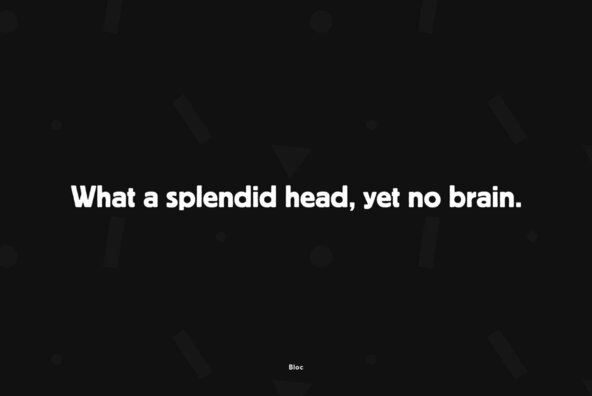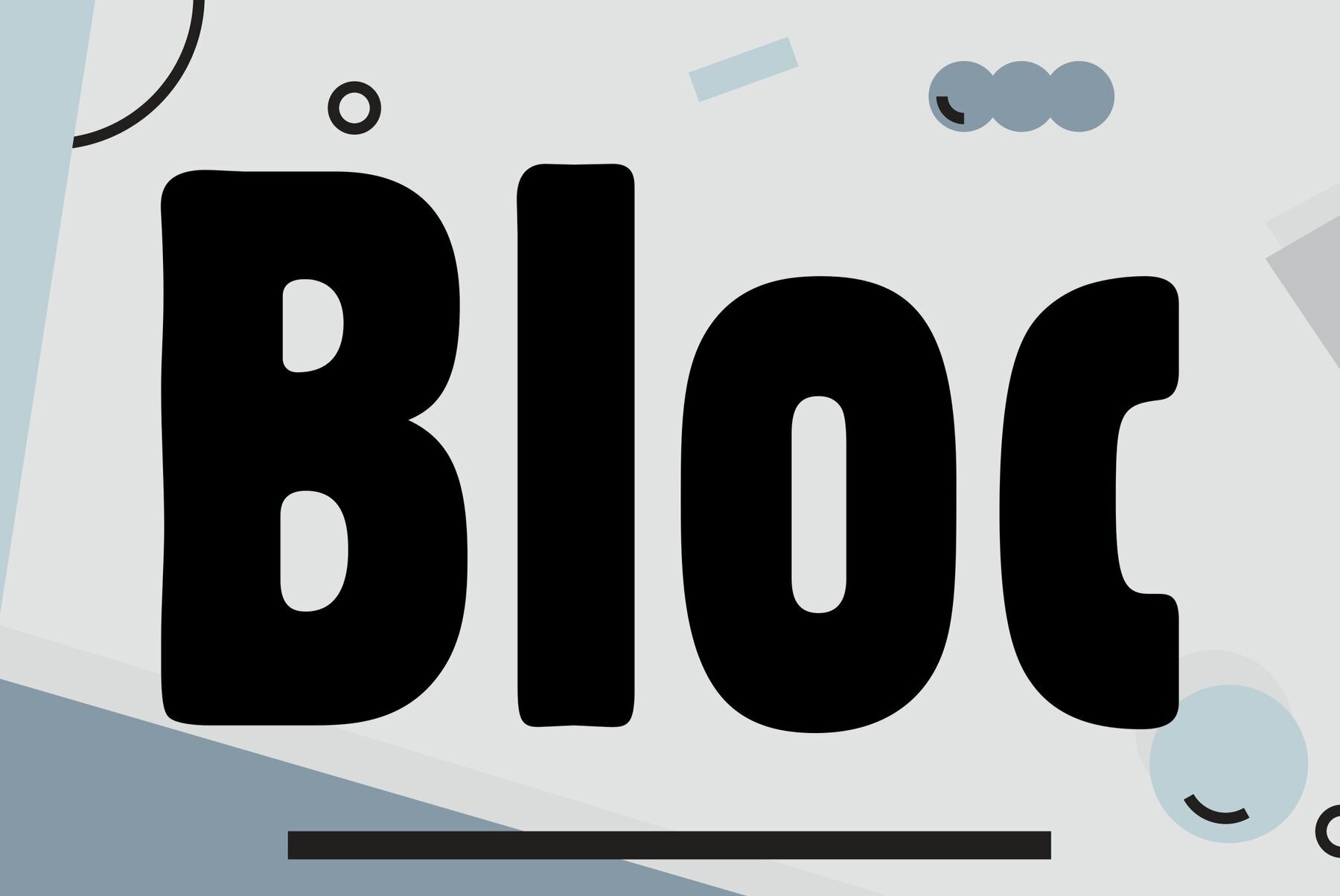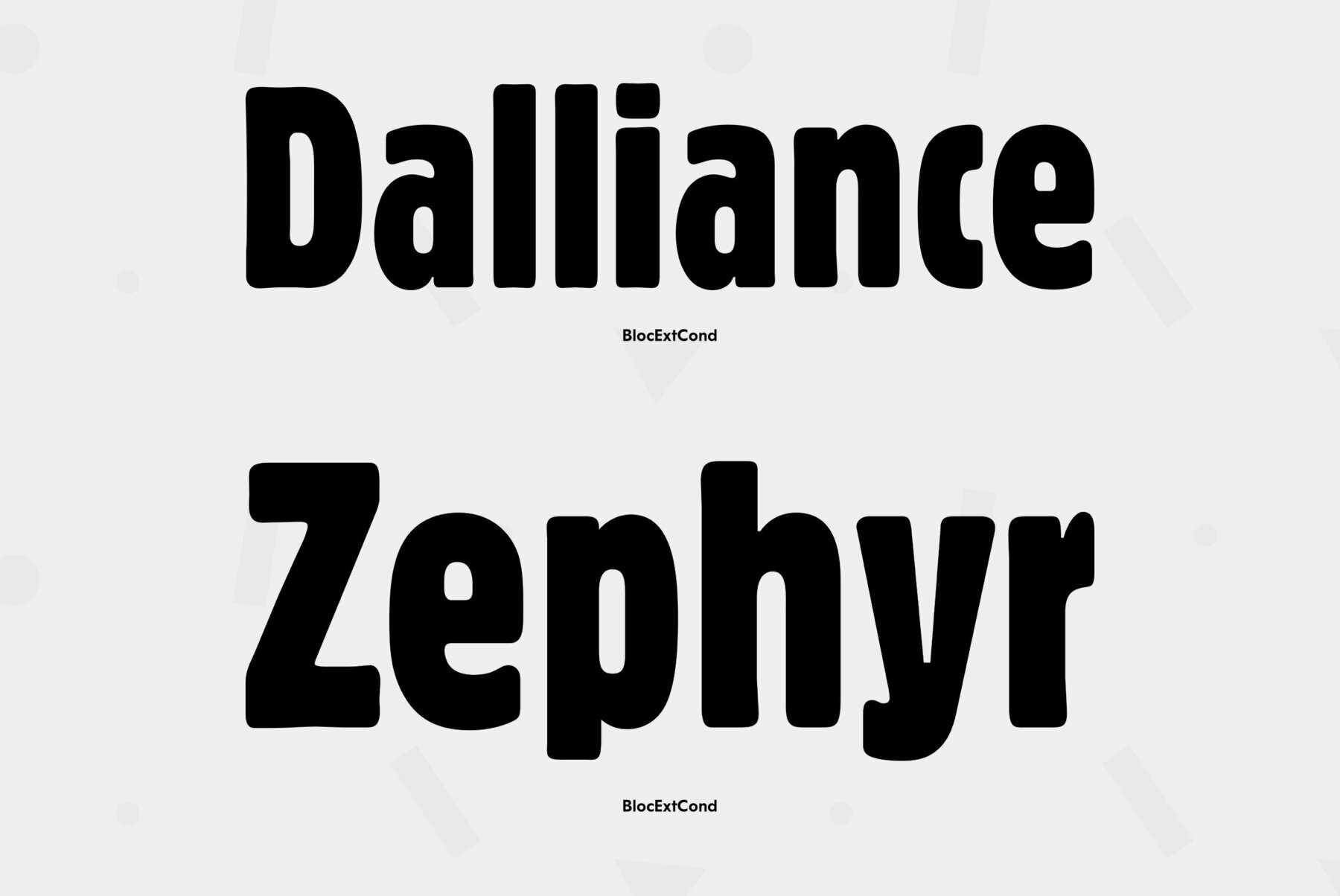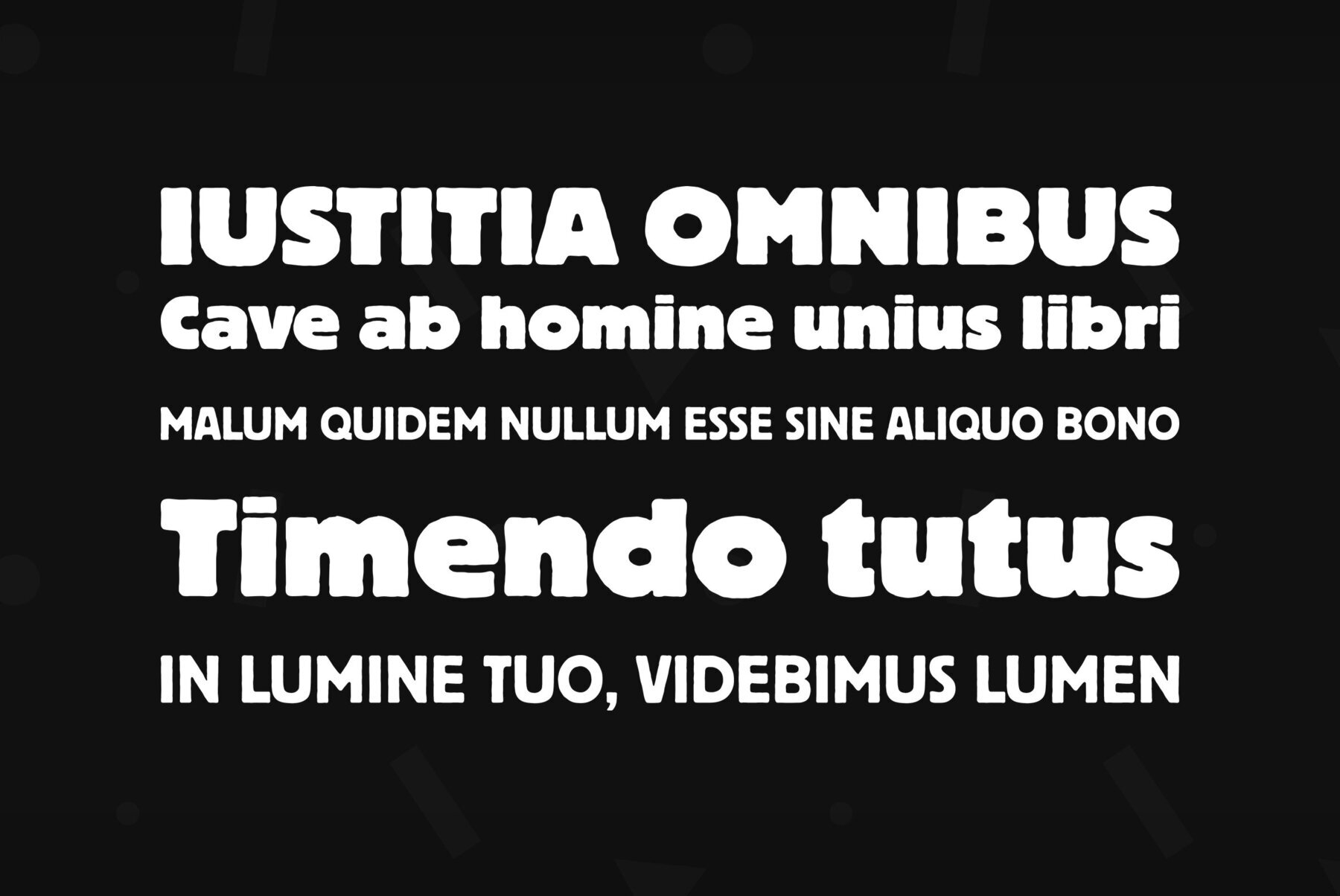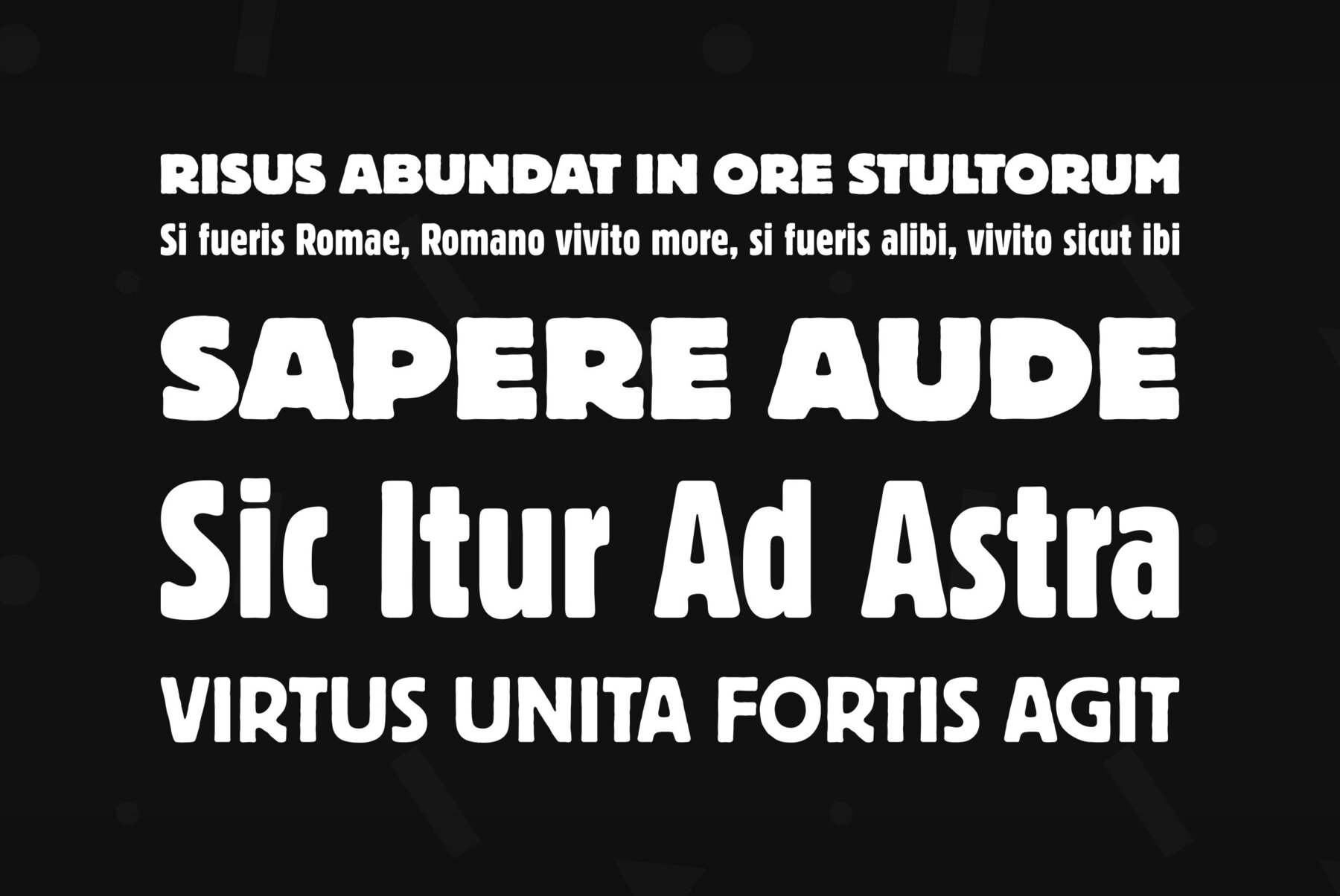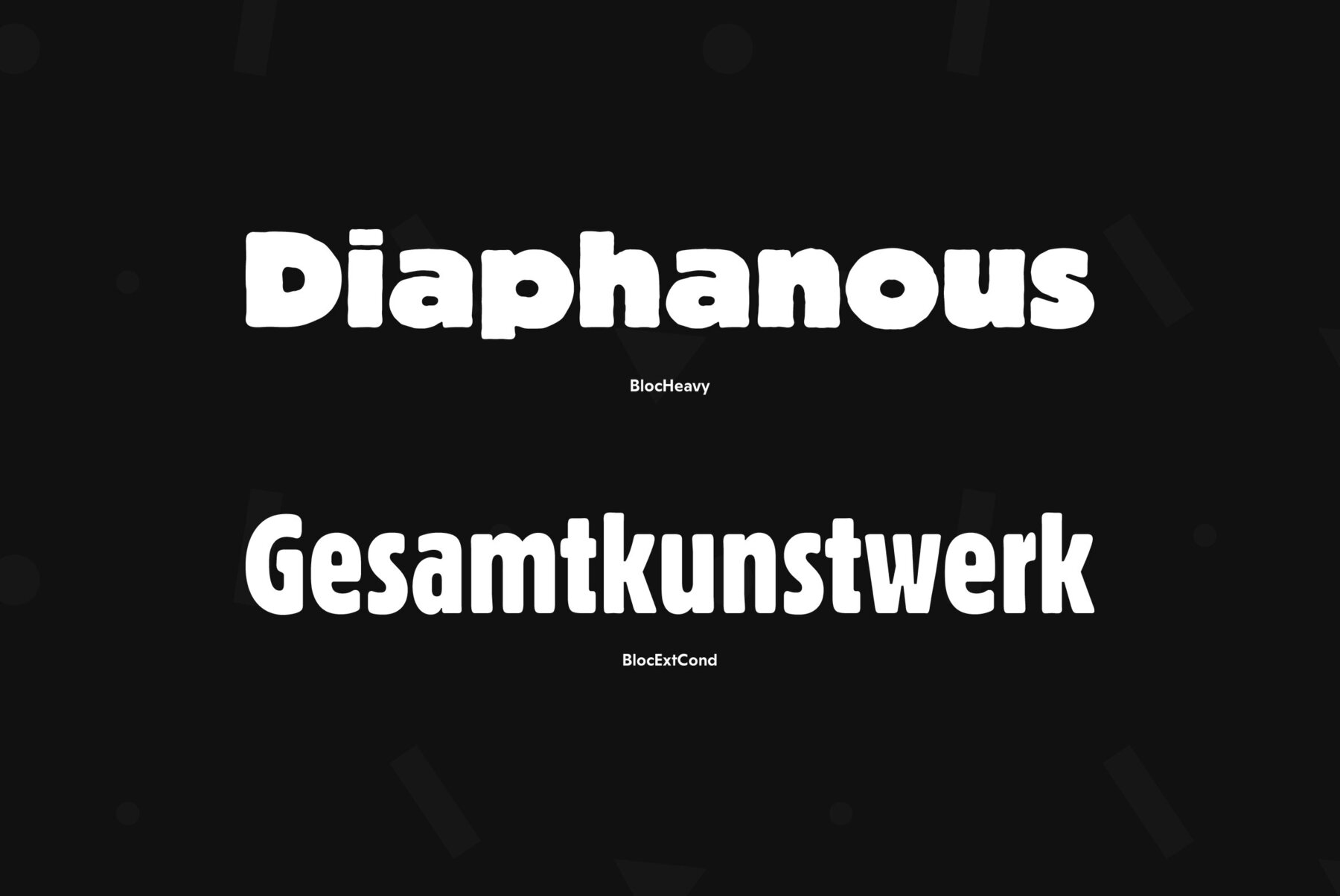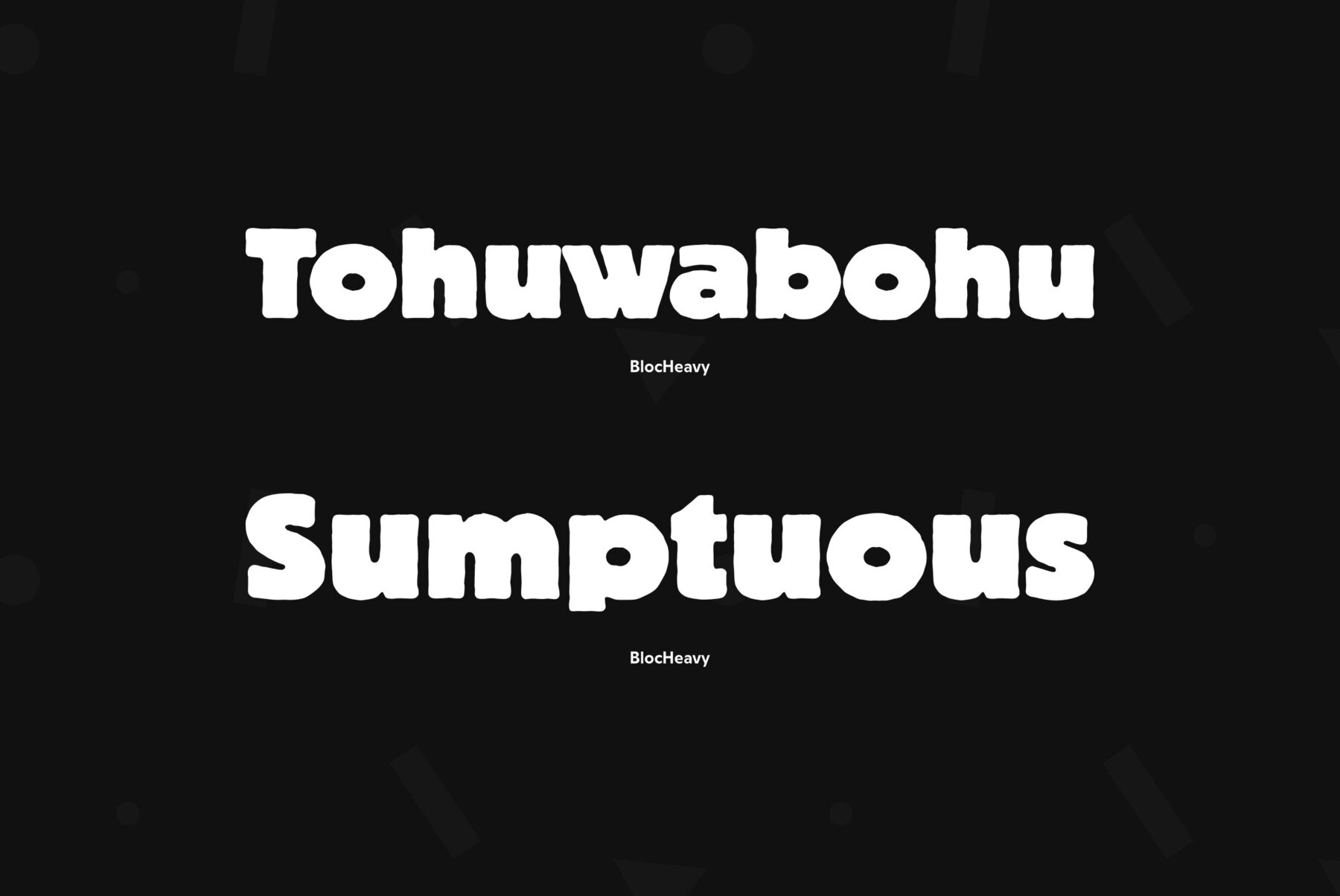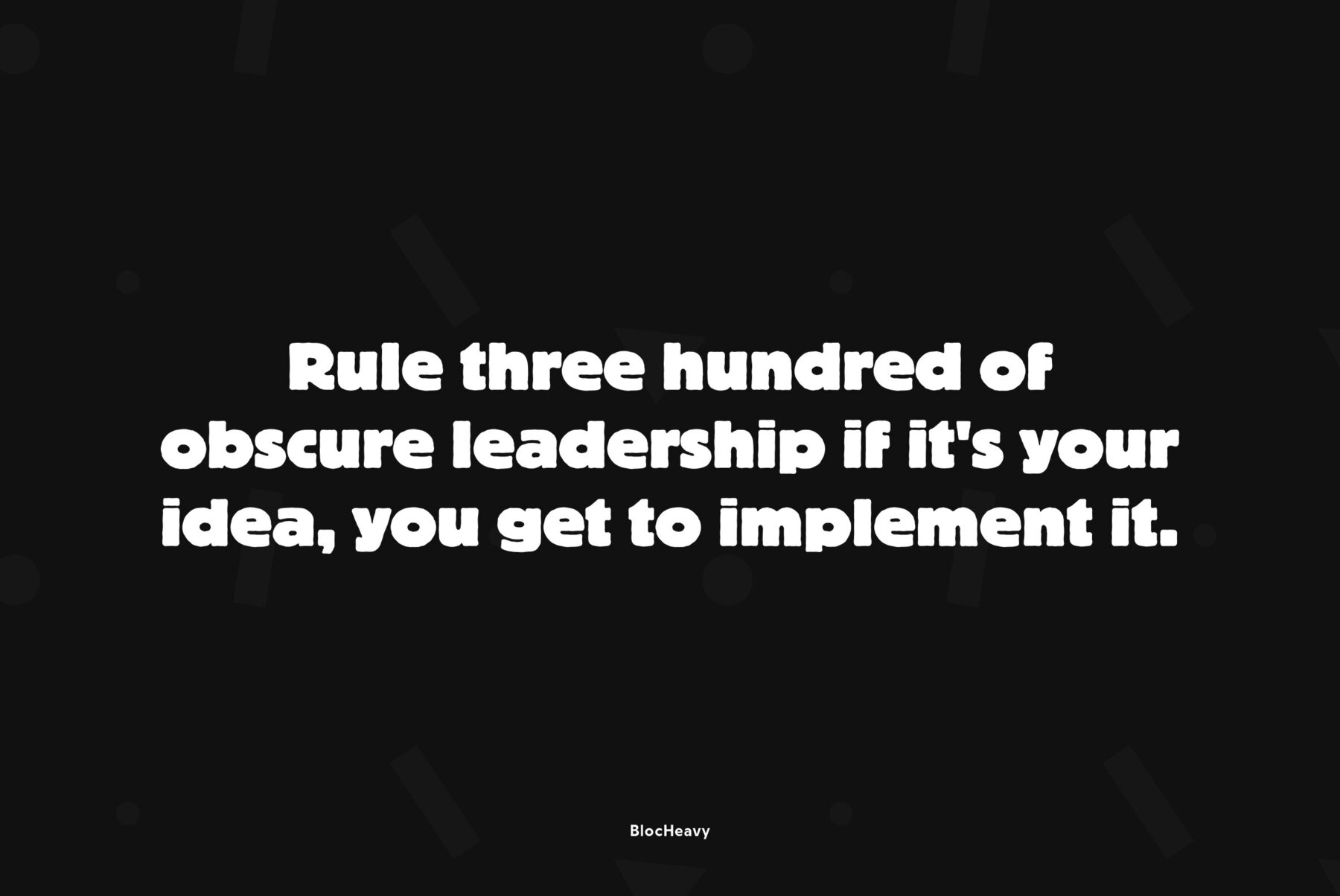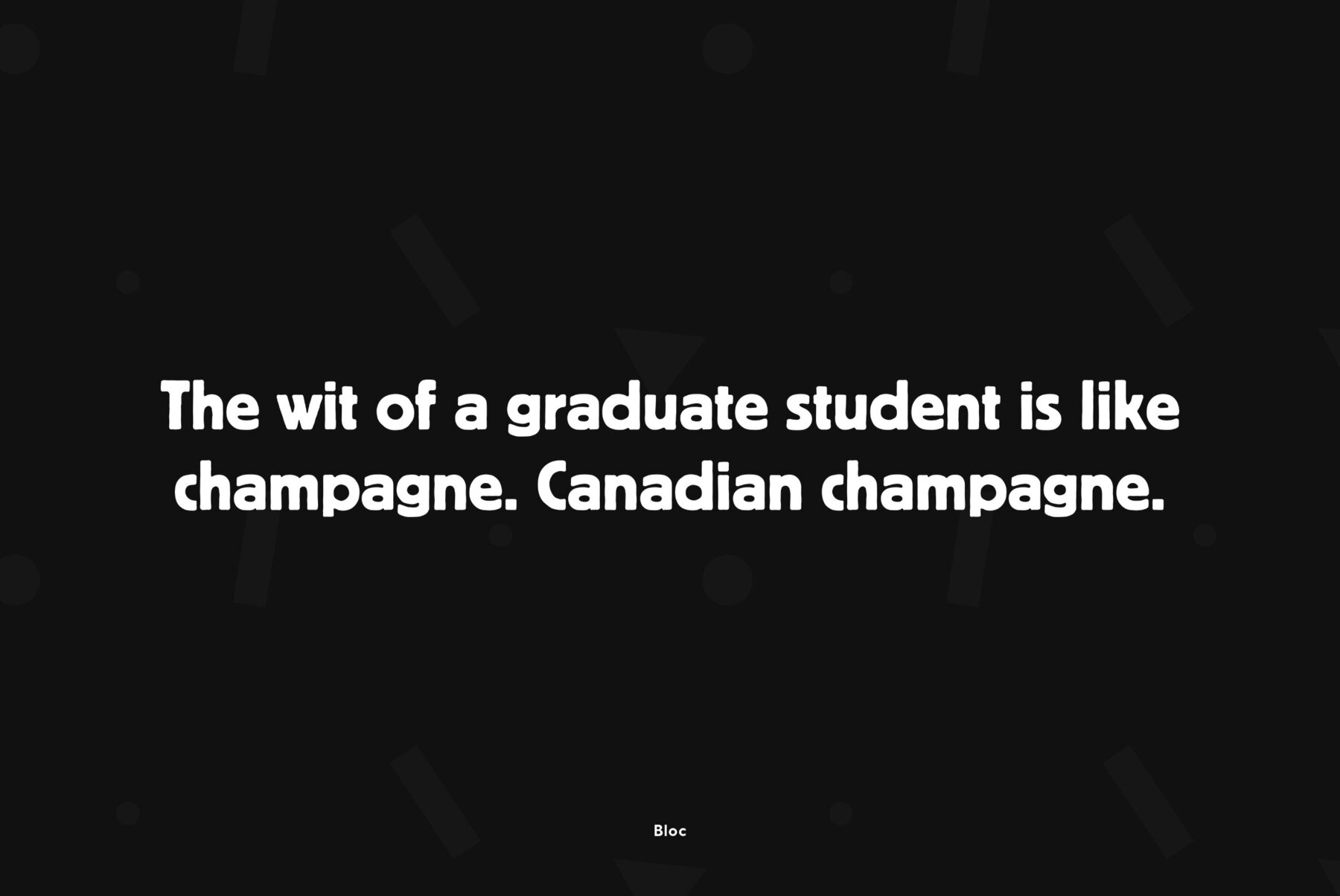
Designed at ParaType (ParaGraph) in 1997 by Tagir Safayev. Based on Block of H. Berthold, 1908 by Heinz Hoffmann. A bold sans of a typical German pattern. For use in advertising and display typography.